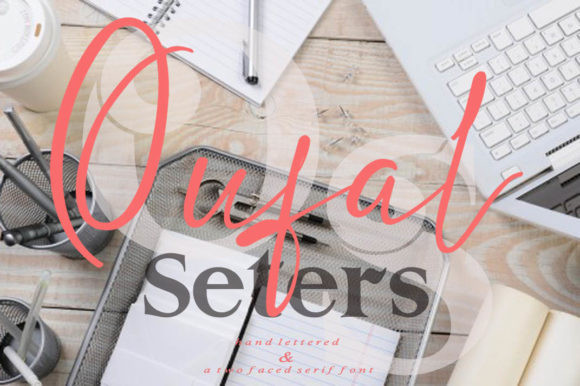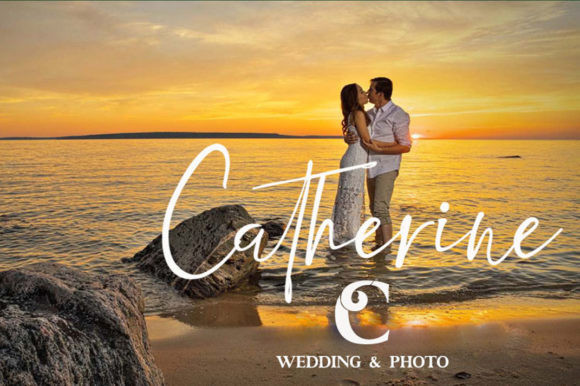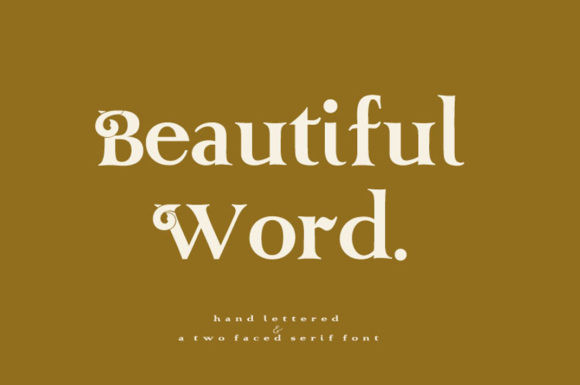
Aufal Seters Font
Aufal Seters is a incredible handwritten font carefully created with a touch of elegance. With its neat and beautiful arrangement of letters, this typeface will look outstanding in both formal and non-formal designs.